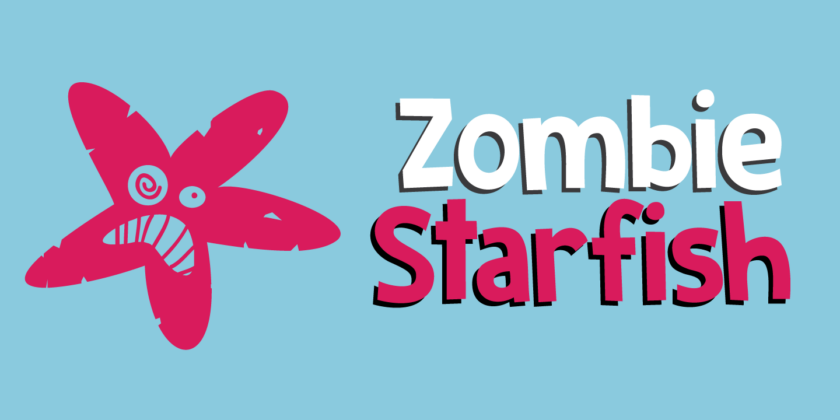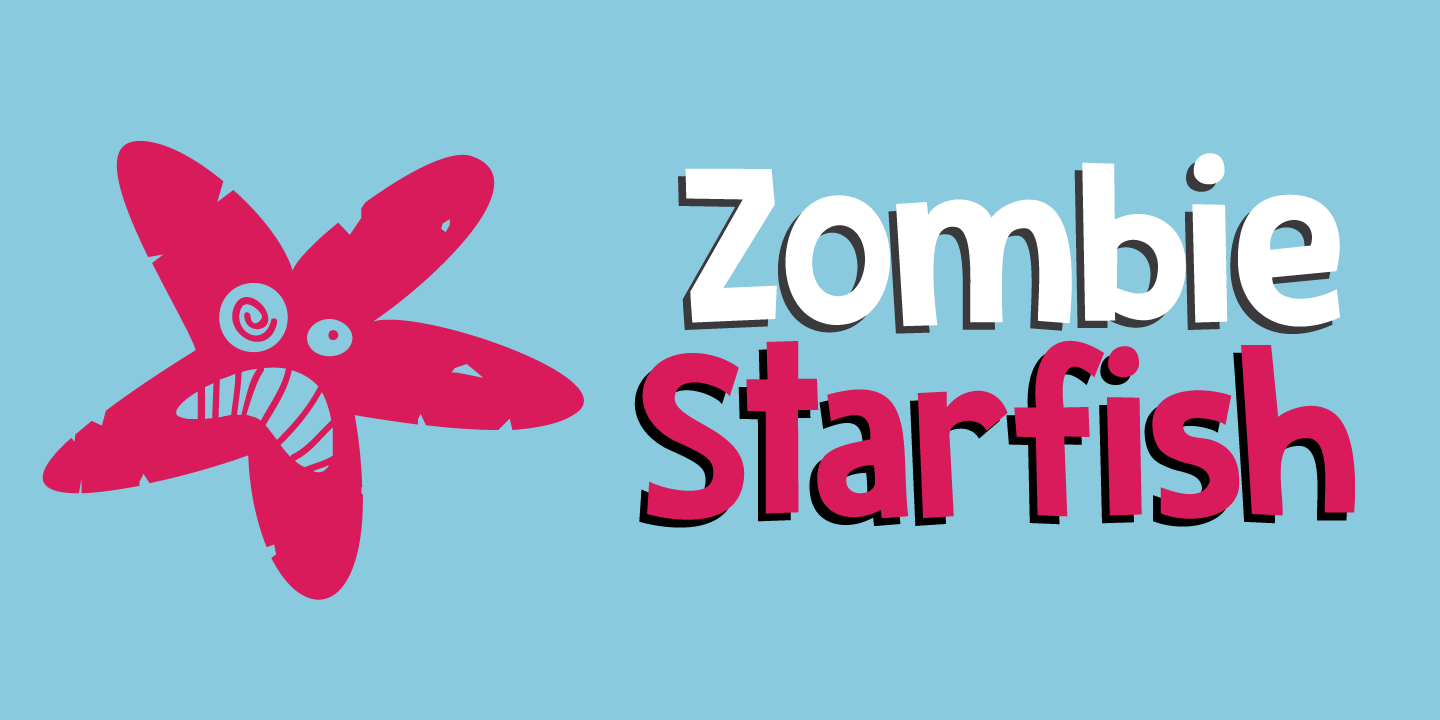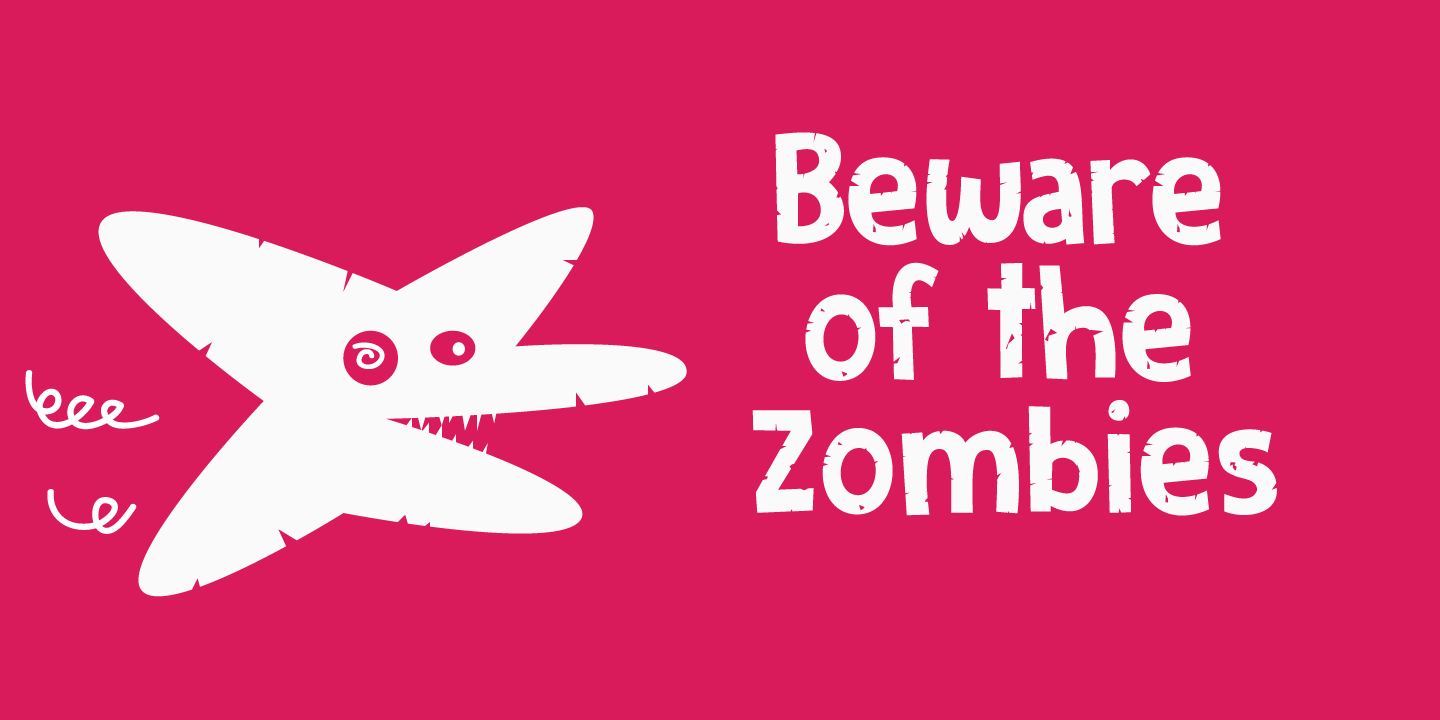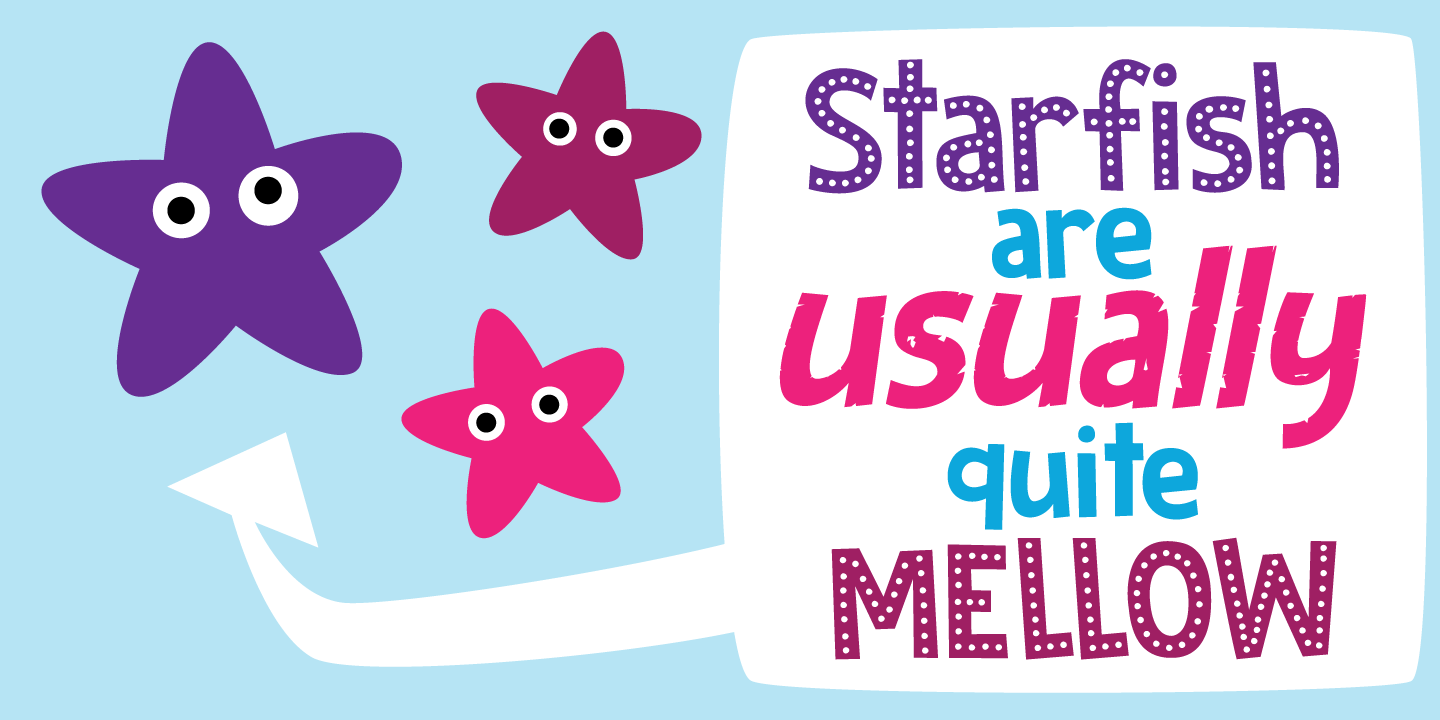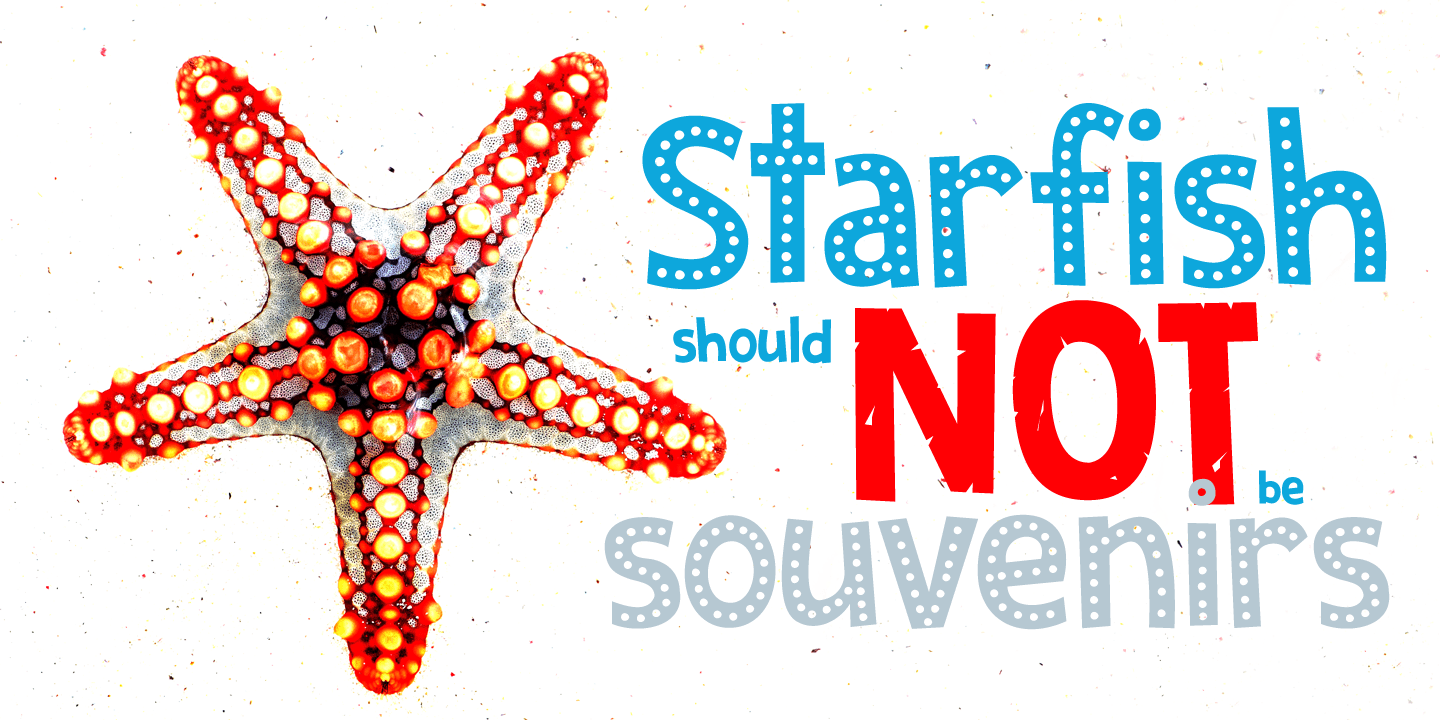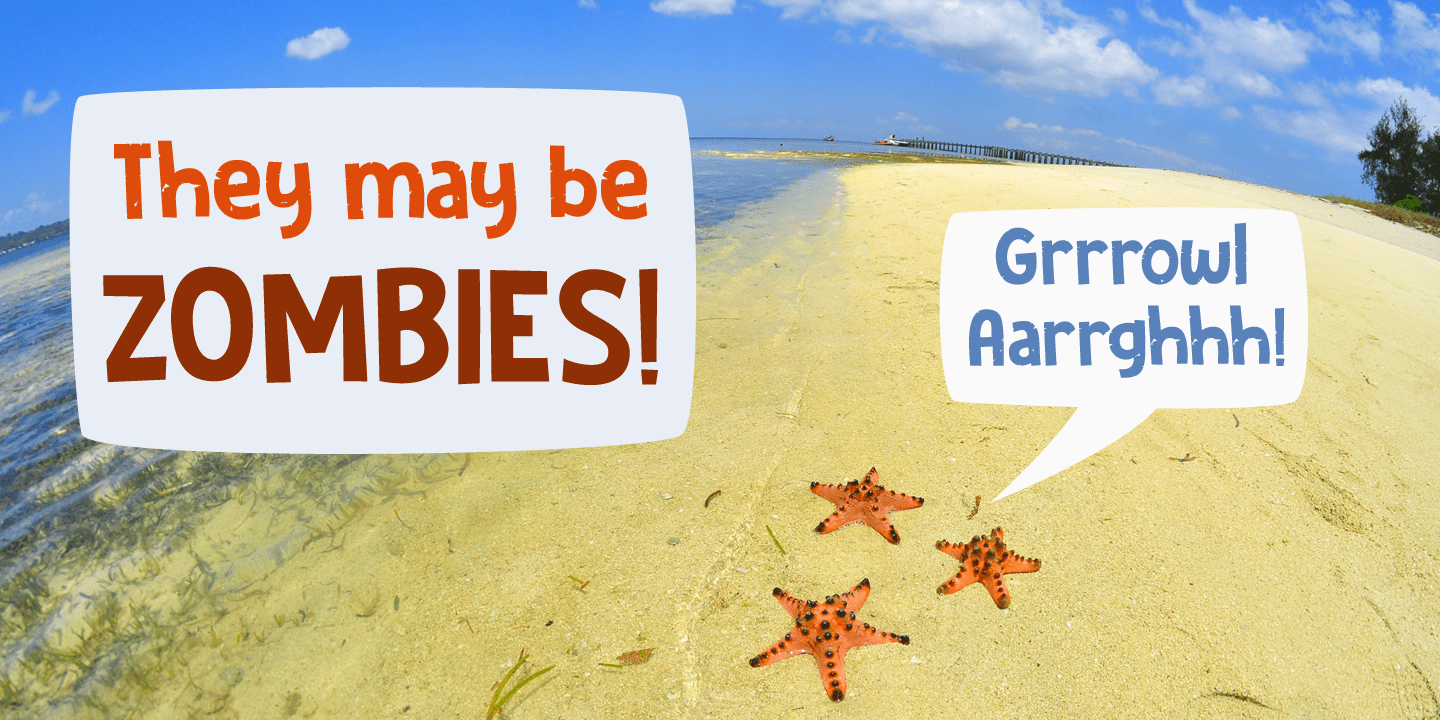
Zombie Starfish
About Zombie Starfish
Ever seen a zombie starfish? No? Well, neither have I. But this font actually comes close! Zombie Starfish, despite its name, is quite a happy cartoon font. It comes in three styles (regular, eroded and dots), plus accompanying italics. Use it for book…